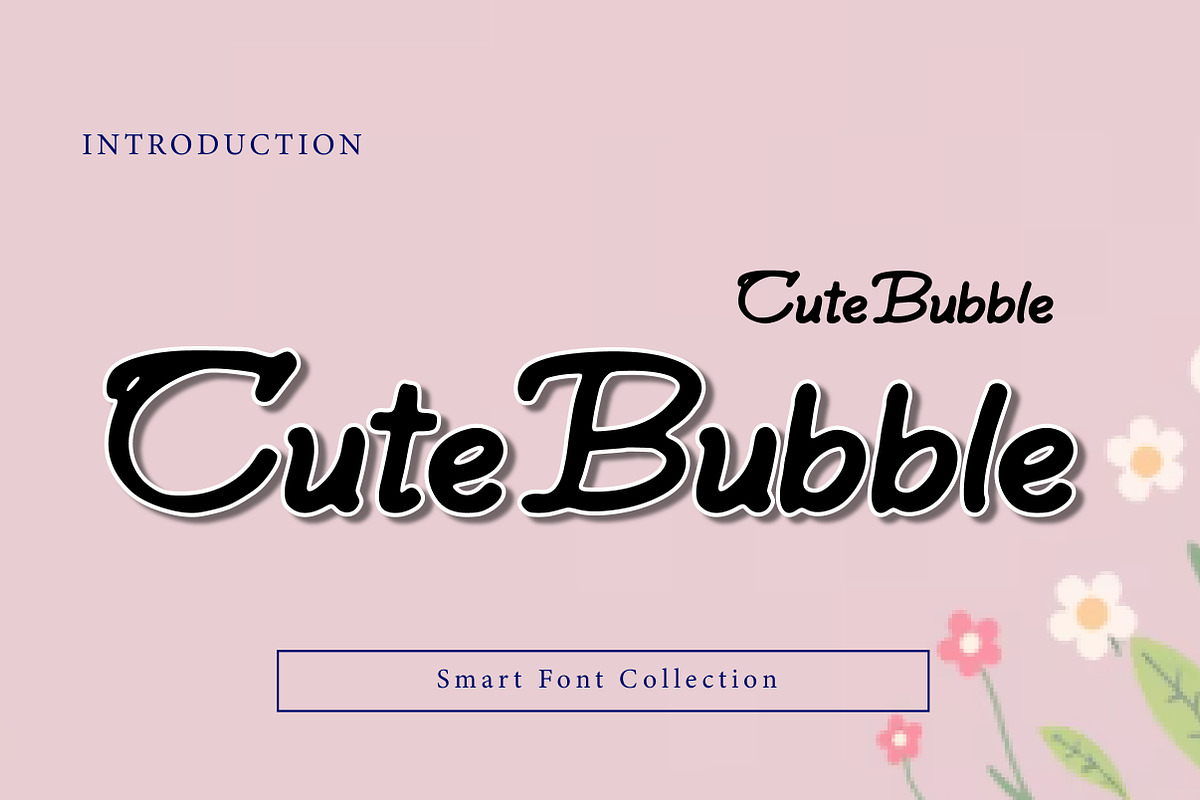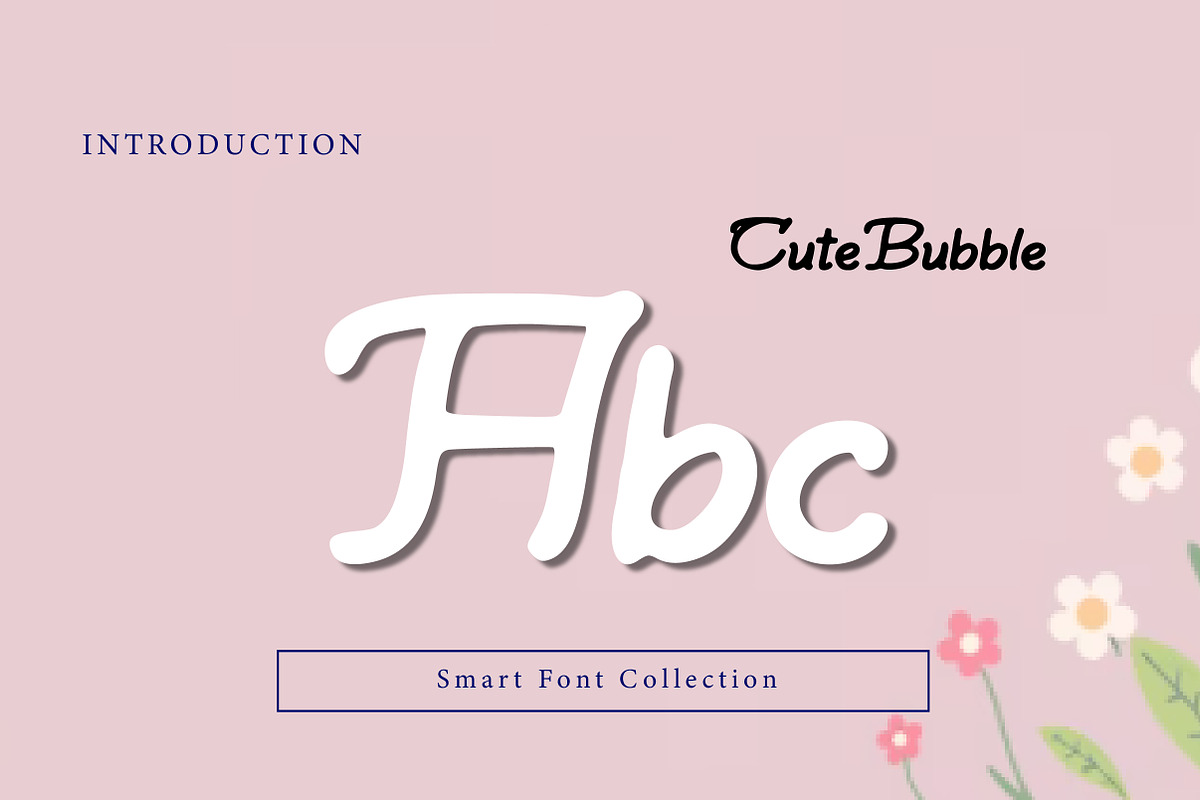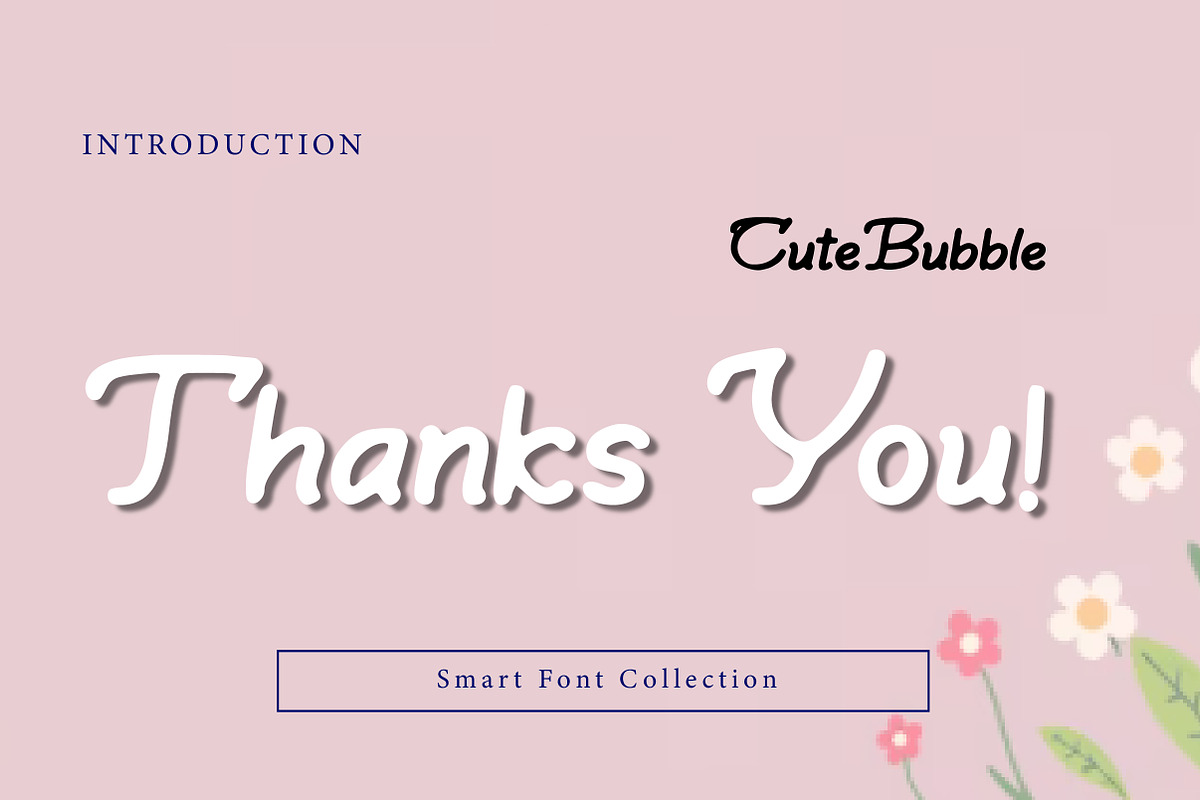
Cute Bubble
CuteBubble is a playful, soft, and bubbly display font designed to spread instant happiness. With its rounded strokes, smooth curves, and friendly handwritten feel, this typeface is perfect for children’s designs, cheerful branding, stickers, social media graphics, packaging, quotes, and fun headlines. CuteBubble brings a warm, joyful personality to your projects—making it ideal for brands and creatives who want to communicate sweetness, positivity, and approachability at first glance.